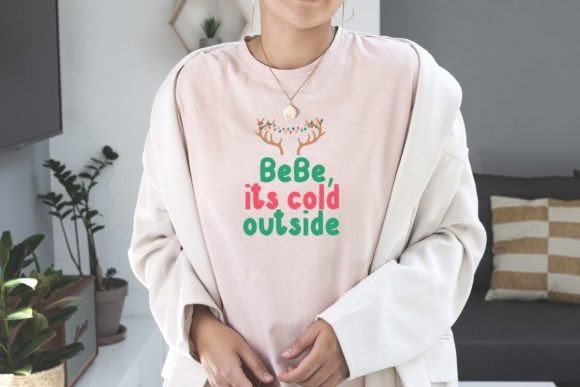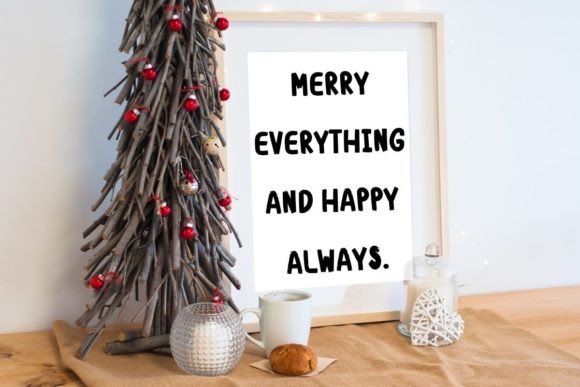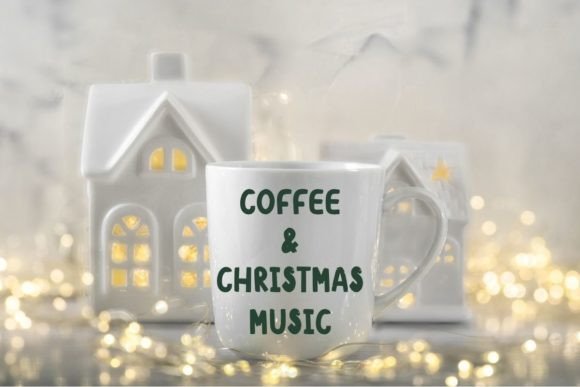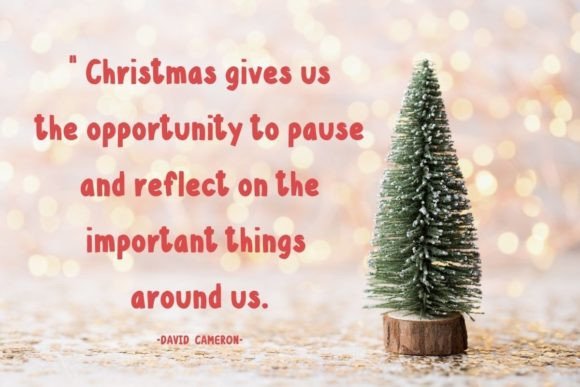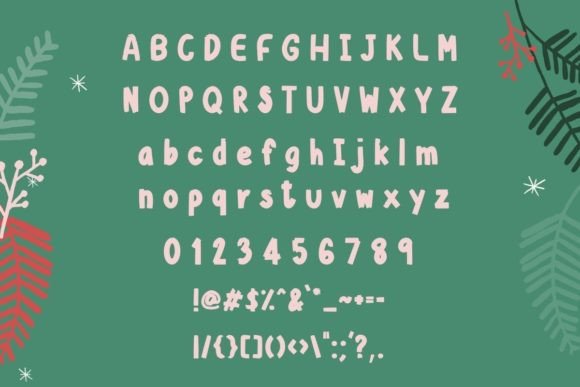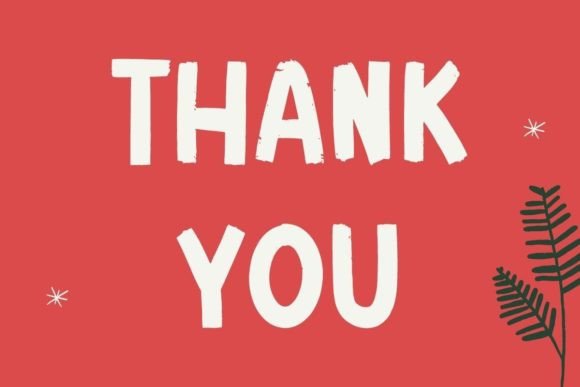
Candy Crunch Font: The Sweetest Addition to Your Font Library
Are you tired of using the same old fonts for your designs? Look no further than the Candy Crunch Font! This cool and fun display font is perfect for adding a touch of whimsy and drama to your titles and words. In this article, we’ll dive into the features and benefits of the Candy Crunch Font, and explore how it can elevate your designs to the next level.
What is Candy Crunch Font?
Candy Crunch Font is a unique and eye-catching display font that is sure to make your designs stand out. With its bold and playful style, it’s perfect for titles, headings, and words that need a more dramatic emphasis. The font’s distinctive crunch texture gives it a fun and lively feel, making it ideal for designs that require a bit of personality.
Key Features of Candy Crunch Font
- Cool and Fun Design: The Candy Crunch Font boasts a fun and playful design that’s sure to capture attention. Its bold and chunky texture makes it perfect for creating eye-catching titles and headings.
- Display Font: As a display font, Candy Crunch is specifically designed to make a statement. It’s perfect for use in titles, headings, and other large-format text.
- Versatile: Whether you’re designing a poster, flyer, or social media graphic, the Candy Crunch Font is versatile enough to fit any project.
- Easy to Read: Despite its bold and chunky texture, the Candy Crunch Font is surprisingly easy to read, making it perfect for use in a variety of design applications.
Benefits of Using Candy Crunch Font
So why should you add the Candy Crunch Font to your font library? Here are just a few benefits of using this amazing font:
- Adds Visual Interest: The Candy Crunch Font adds a level of visual interest to your designs that’s hard to achieve with more traditional fonts.
- Creates a Fun and Playful Feel: The font’s fun and playful texture gives designs a lighthearted and youthful feel that’s perfect for brands and projects that want to appear friendly and approachable.
- Enhances Creativity: With the Candy Crunch Font, you can add a touch of creativity and whimsy to your designs, making them more engaging and memorable.
- Perfect for a Variety of Projects: From posters and flyers to social media graphics and website headers, the Candy Crunch Font is versatile enough to fit any project.
Who Can Benefit from Candy Crunch Font?
The Candy Crunch Font is perfect for a variety of designers and crafters, including:
- Graphic Designers: Whether you’re working on a client project or creating your own designs, the Candy Crunch Font is a great addition to your font library.
- Crafters: If you’re a crafter who loves to create handmade cards, gift tags, and other paper crafts, the Candy Crunch Font is a great way to add a touch of personality to your projects.
- Social Media Managers: The Candy Crunch Font is perfect for creating eye-catching social media graphics that will help your brand stand out.
- Web Designers: Use the Candy Crunch Font to create bold and eye-catching website headers and titles that will draw visitors in.
How to Use Candy Crunch Font
Using the Candy Crunch Font is easy! Here are a few tips for incorporating it into your designs:
- Use it as a Title Font: The Candy Crunch Font is perfect for use in titles and headings, where its bold and chunky texture can really make an impact.
- Experiment with Colors: The Candy Crunch Font looks great in a variety of colors, so don’t be afraid to experiment and find the perfect hue for your design.
- Pair it with Other Fonts: The Candy Crunch Font pairs well with a variety of other fonts, so try combining it with some of your other favorite fonts to create a unique and eye-catching design.
| Font Name | Candy Crunch Font |
In conclusion, the Candy Crunch Font is a fun and versatile display font that’s perfect for adding a touch of whimsy and drama to your designs. With its bold and chunky texture, it’s sure to make your titles and words stand out. Whether you’re a graphic designer, crafter, social media manager, or web designer, the Candy Crunch Font is a great addition to your font library. So why not give it a try and see how it can enhance your designs?